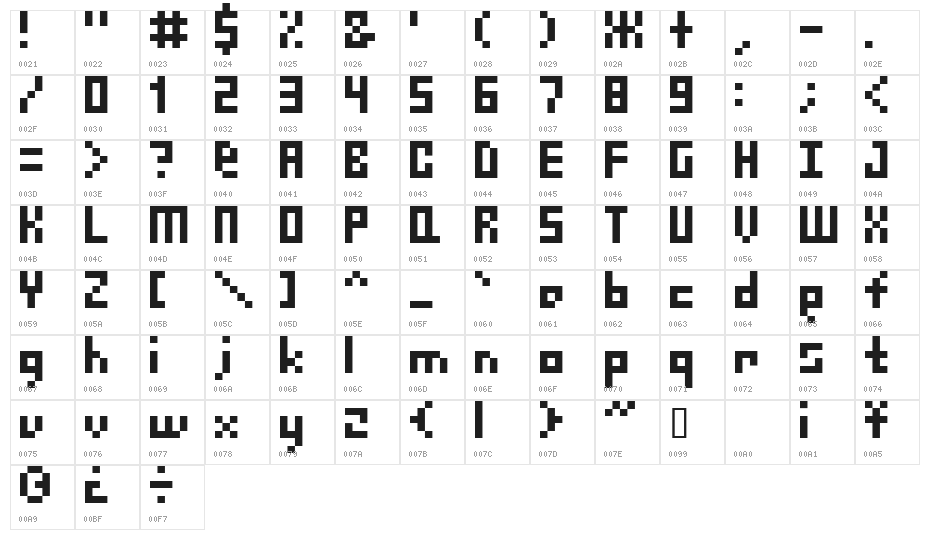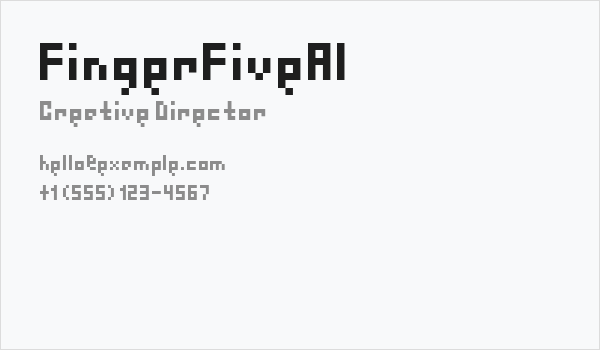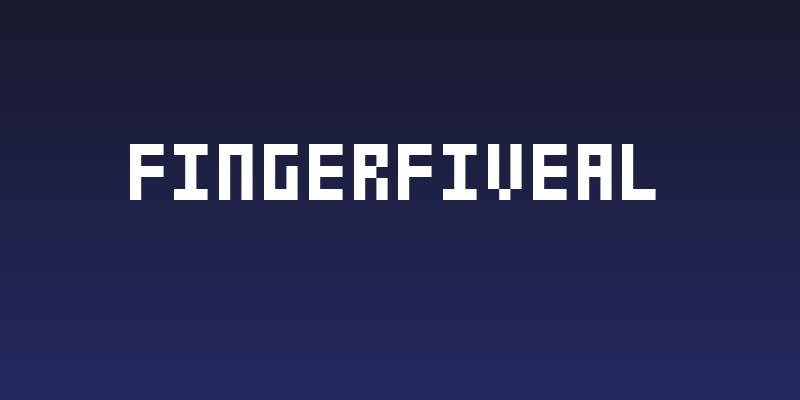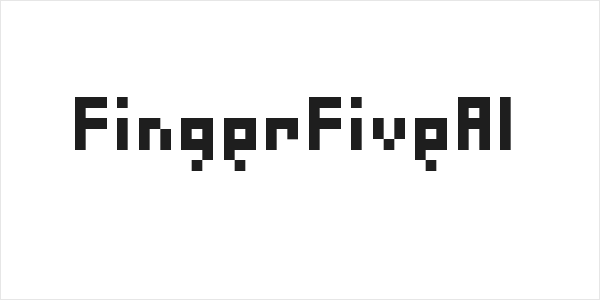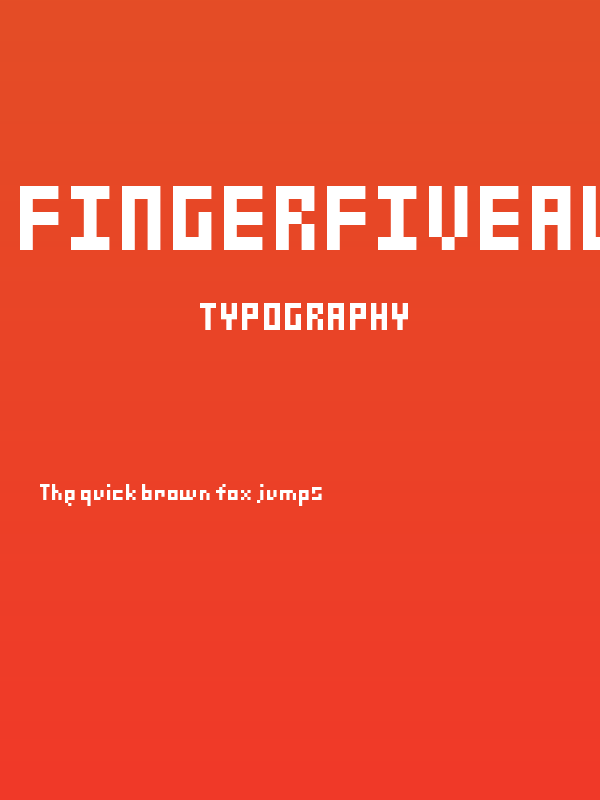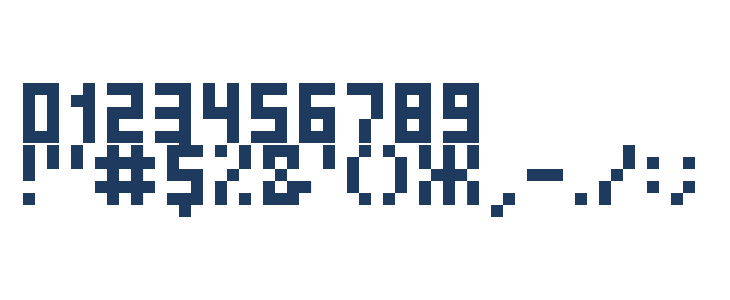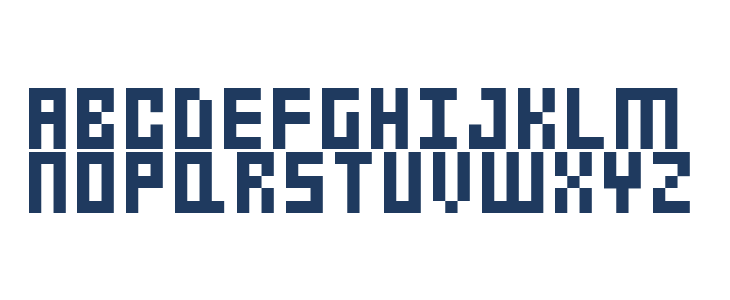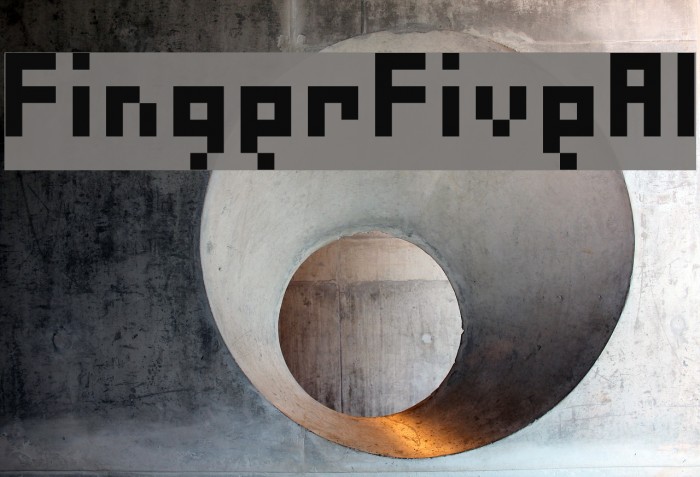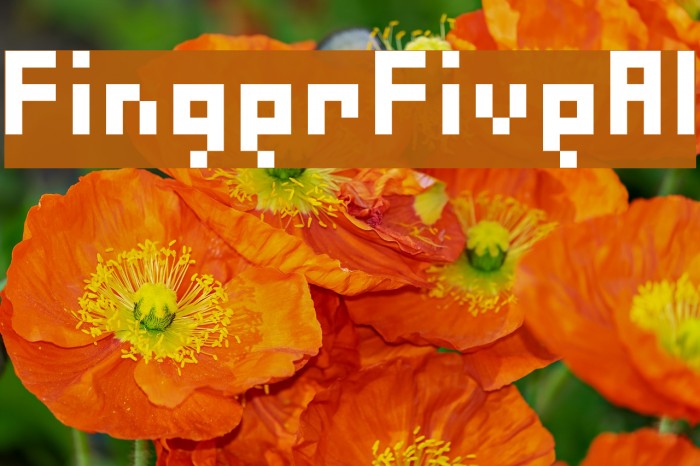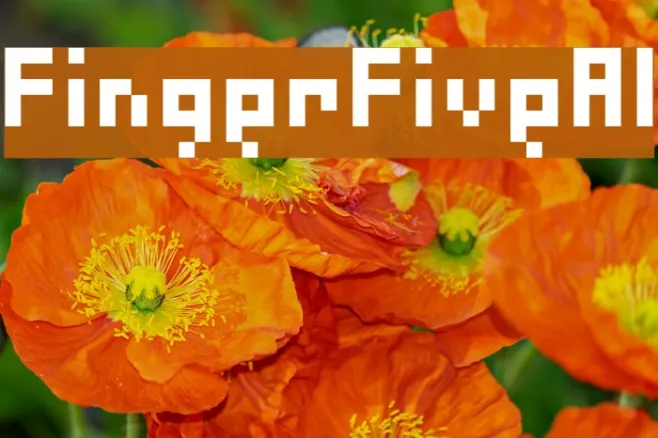
FingerFiveAl Font
FingerFiveAl Description
This font features a bold, pixelated design reminiscent of early digital and arcade aesthetics. Each character is constructed with a blocky, grid-like structure, giving it a distinctly retro and digital feel. The uppercase and lowercase letters maintain a consistent height, emphasizing uniformity and simplicity. Numbers and special characters follow the same pixelated style, ensuring a cohesive look across all glyphs. The font's geometric and monospaced nature makes it ideal for projects that require a vintage or tech-inspired theme.
| Use Case | Logos, Headlines, Digital displays |
| Proposed Projects | Ideal for video game design, retro-themed posters, digital art, and tech-related branding. |